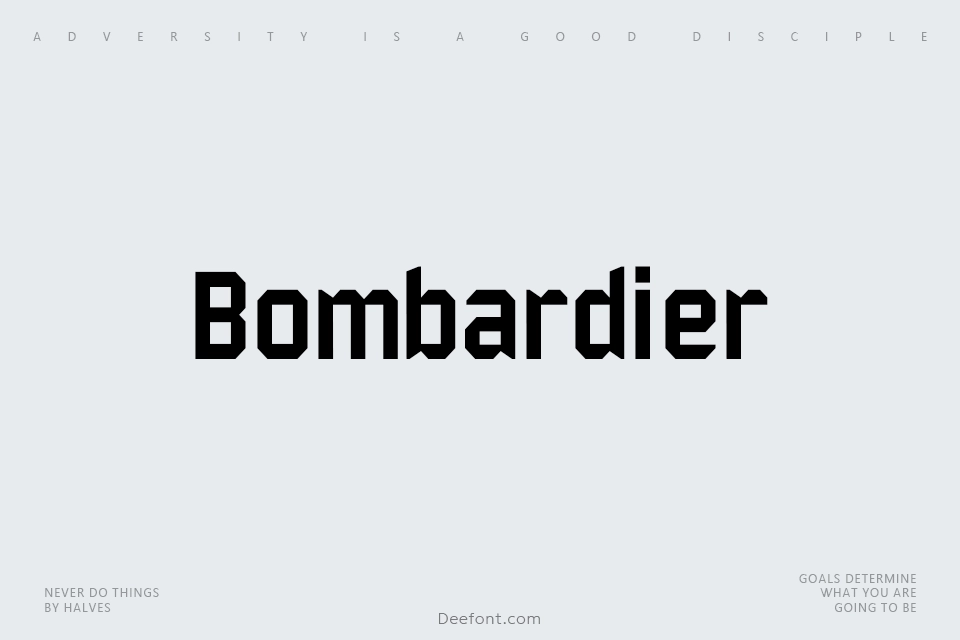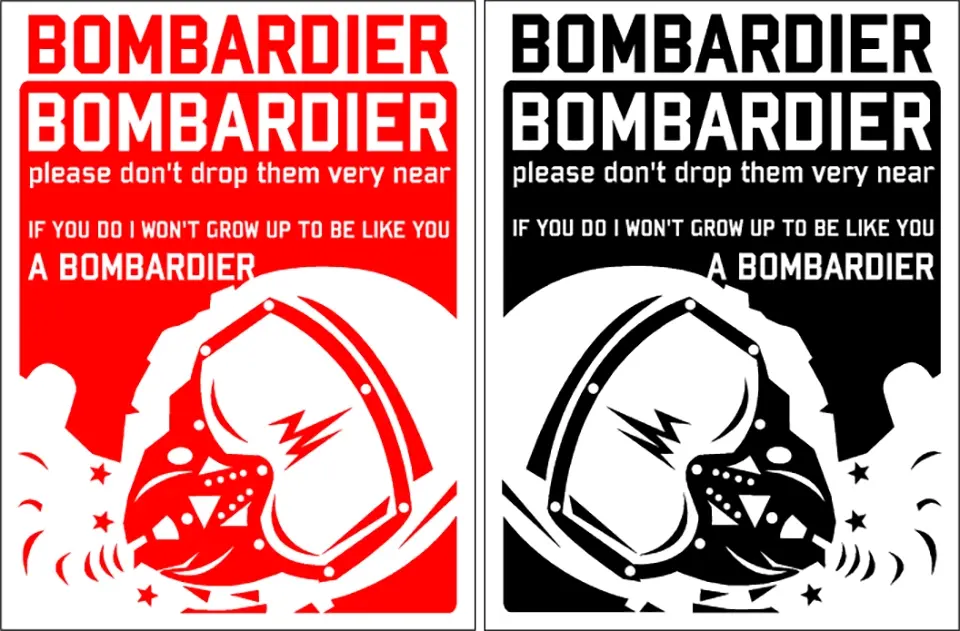
Bombardier Font
Bombardier is a bold, geometric display font designed by Apostrophic Labs with sharp angles and a modern aesthetic. Featuring a heavy blocky design perfect for headlines, posters, and branding projects, this typeface combines Art Deco influences with contemporary styling. The font’s uniform letterforms and strong presence make it ideal for logos and display typography that demands attention and impact in tech, gaming, and design industries.